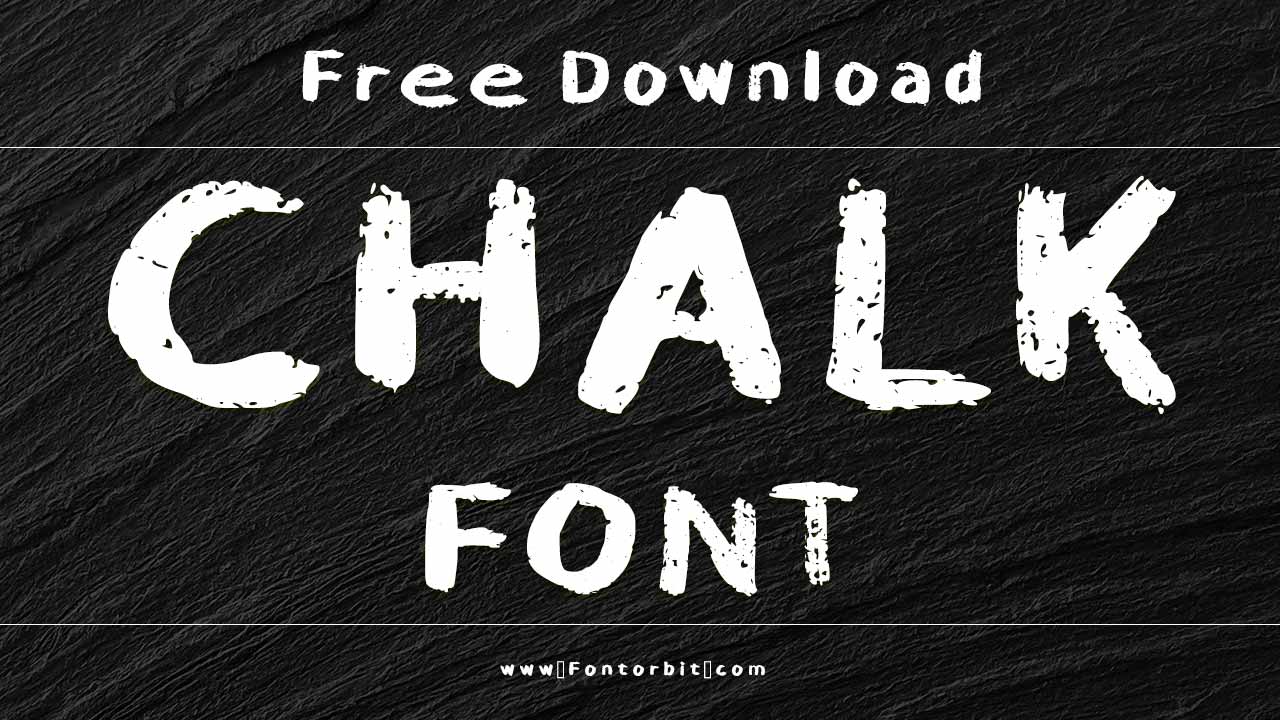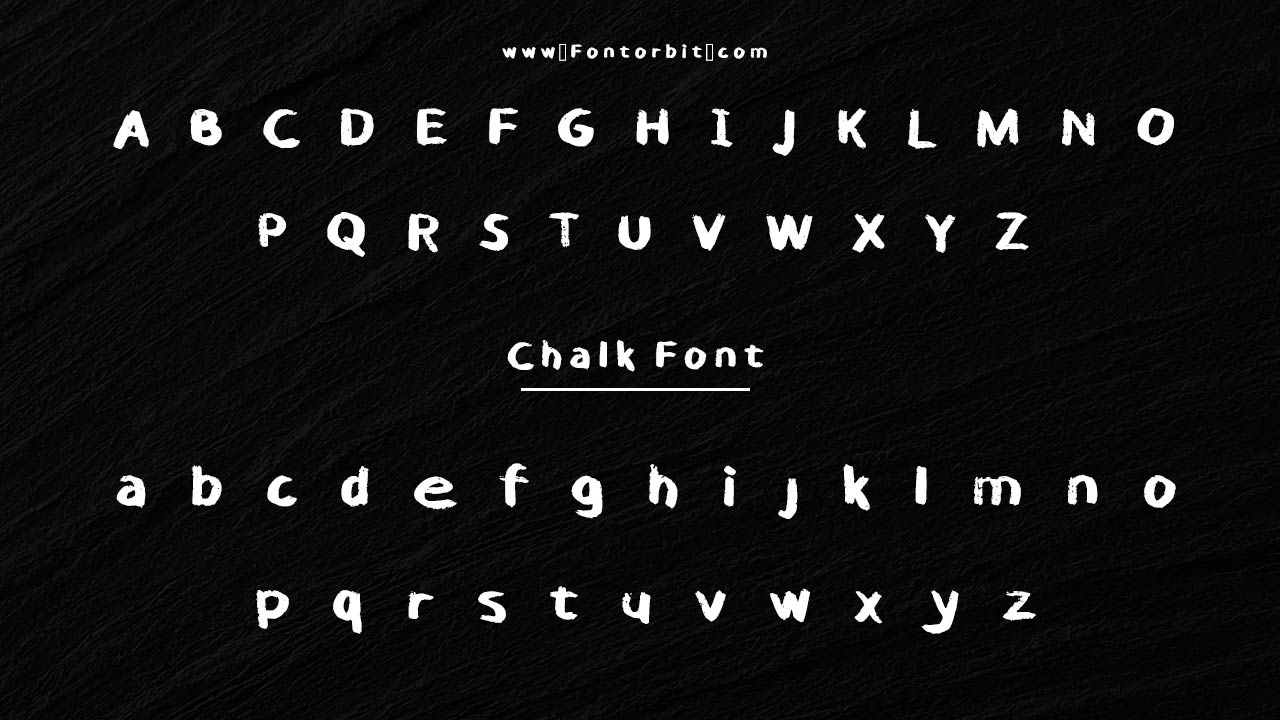
The Chalk Font is a versatile typeface designed to emulate the look of chalk on a blackboard. This font style is widely used for creative and educational designs, offering a playful and nostalgic feel. Whether you’re working on a menu, poster, or digital graphic, Chalk Font adds a handcrafted touch to your projects. Jhosbel created this font.
Type Of The Chalk Font (Font Family)
The Chalk Font Family comes in various styles and weights, making it suitable for multiple design needs. Designed to mimic real chalk textures, this typeface provides a balance of charm and readability. It is available in TrueType Font (TTF) format, ensuring compatibility with most graphic design tools and platforms.
Font Variants:
- Chalk Regular
These variations allow designers to experiment with different typography styles, whether for bold headlines or subtle accents.
Using Occasions Of The Chalk Font
The Chalk Font is ideal for a variety of design applications, particularly those that require a handwritten or chalkboard aesthetic. Here are some common use cases:
Educational Materials
- Perfect for creating blackboard-themed designs for schools, tutorials, or learning aids.
Posters And Event Signage
- Adds a playful yet sophisticated touch to event announcements and promotional materials.
Graphic Design Projects
- Enhances the visual appeal of creative projects, especially those involving handmade or retro themes.
Menus And Branding
- Ideal for cafe menus, restaurant branding, or any project with a rustic or chalkboard aesthetic.
Typography Projects
- Works beautifully in headlines, social media posts, and creative lettering designs.
Chalk Font Found In Use
The Chalk Font’s handcrafted appearance makes it a popular choice for projects that call for a casual or artistic vibe. Its distinctive texture and charm are frequently seen in:
- Blackboard-themed restaurant menus
- Handmade greeting cards
- Educational posters and guides
- Chalkboard backgrounds in presentations and designs
Its flexibility and unique character map ensure its wide usage in both digital and print media.
The Chalk Font is a standout typeface for creative and educational projects. Its chalkboard-inspired design, combined with its range of variants, makes it a versatile choice for menus, posters, typography, and more. Whether you’re designing for a classroom or creating rustic-themed branding, Chalk Font delivers the charm and uniqueness you need.
1.What Is A Chalk Font, And How Is It Used In Design?
A chalk font is a typeface designed to mimic the texture and appearance of chalk writing on a chalkboard or blackboard. These fonts are widely used in graphic design projects such as posters, menus, educational materials, and creative typography. They add a playful, handmade feel to designs and are perfect for creating a nostalgic or rustic aesthetic.
2.What Are The Best Chalk Fonts Available?
Some of the best chalk fonts include:
- DK Crayon Crumble: A textured, handcrafted chalk font.
- Chalk Hand Lettering Shaded: A stylish option with a shaded effect.
- White Chalk Serif Font: Ideal for elegant typography.
- Chalk Scratch: A bold and rough chalk font for casual projects.
These fonts are great for designers looking to add unique and textured elements to their work.
4.Can Chalk Fonts Be Used For Educational Materials?
Absolutely! Chalk fonts are ideal for educational materials such as classroom posters, drawing guides, and activity sheets. The familiar look of a chalkboard background paired with handwritten fonts makes learning resources engaging and visually appealing, especially for younger audiences.
5.What Makes Chalk Fonts Unique Compared To Other Handwritten Fonts?
Chalk fonts stand out due to their textured, imperfect lines that replicate the look of real chalk on a blackboard. This gives them a unique font style that combines charm and nostalgia. Many chalk fonts, like handwriting fonts and chalk writing, come with symbols and alphabet options to enhance their versatility.
- Design projects with a focus on a vintage or textured style.